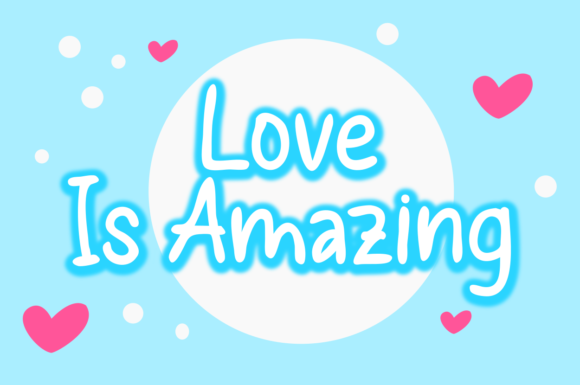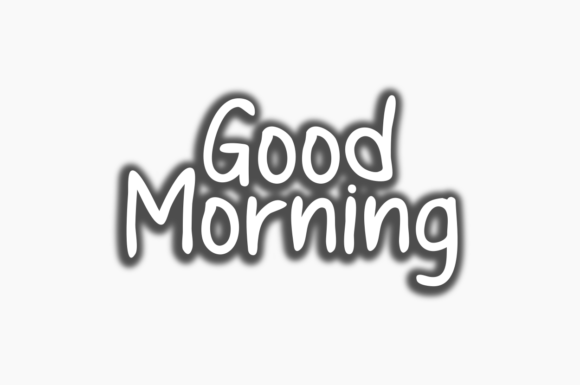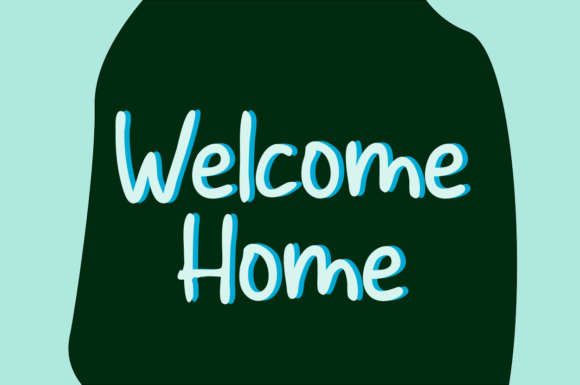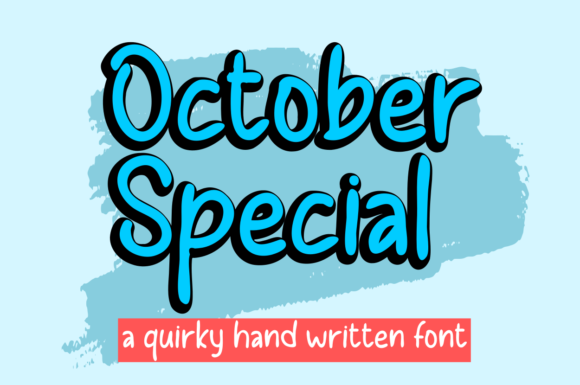
Introduction to October Special Font
October Special is a whimsical script font with a relaxed theme, featuring a lovely style.
No matter the topic, this font will be an incredibly asset to your fonts’ library, as it has the potential to elevate any creation .